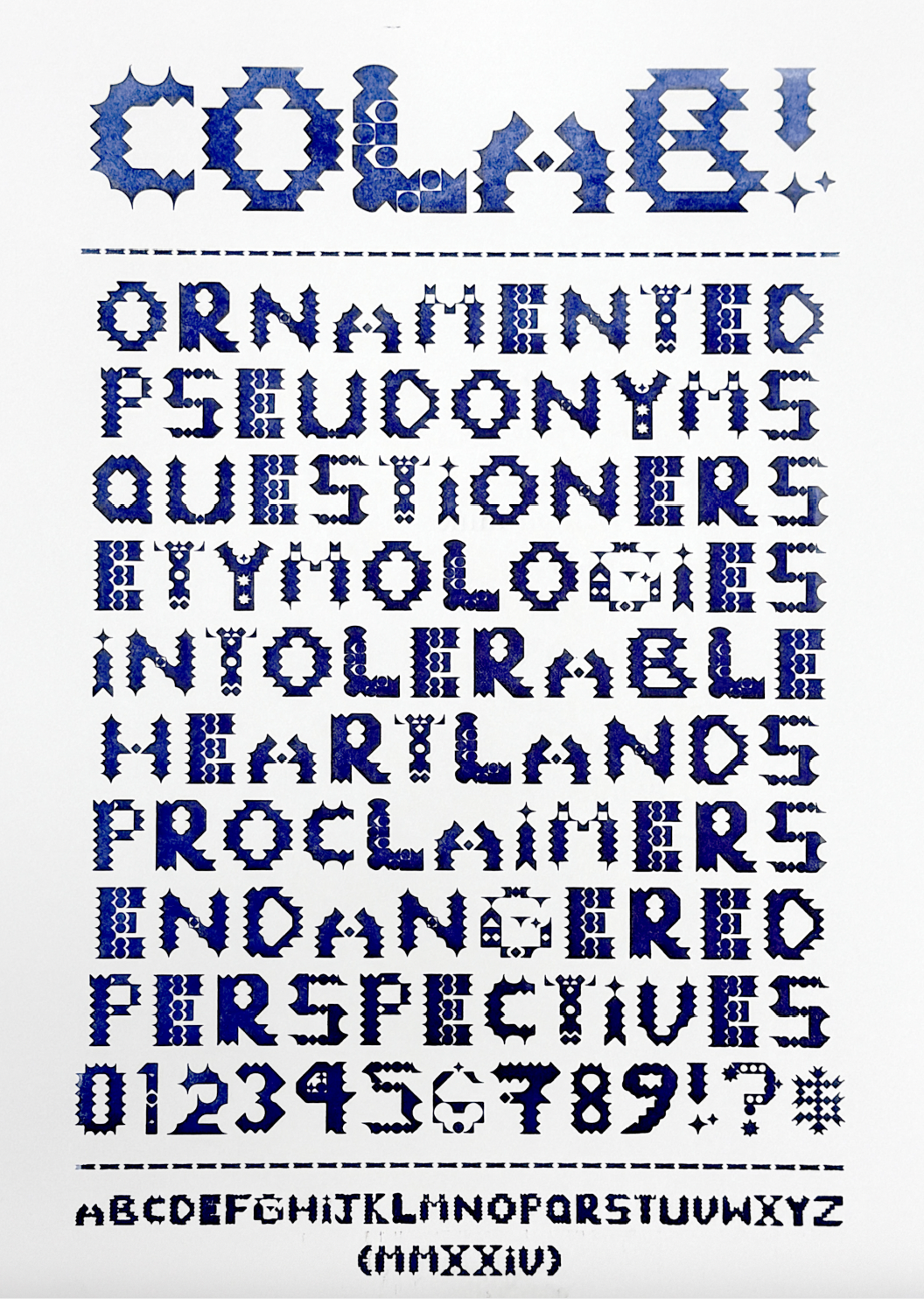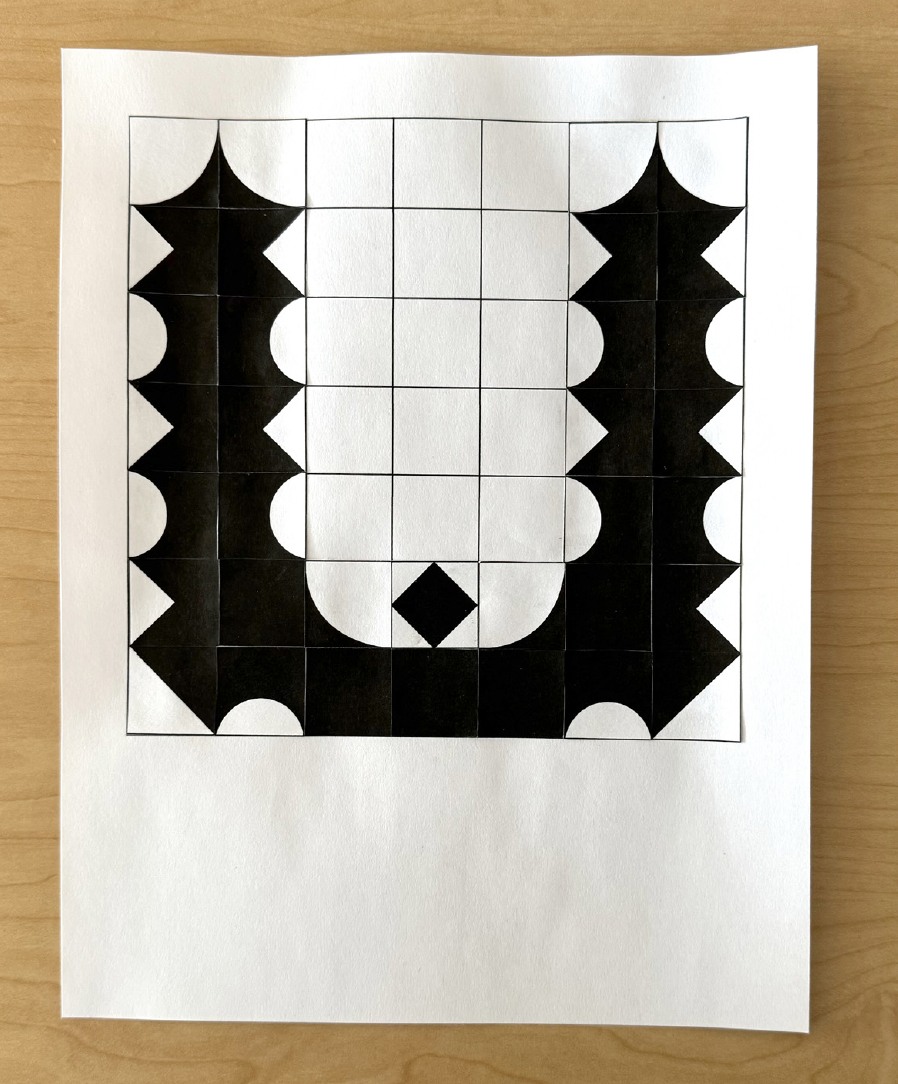
Collab Typeface
This typeface was the result of a collaborative effort by the 14 students enrolled in the course. Each student was responsible for designing a subset of characters based on specific guidelines: every character had to be created within a 7 x 7 grid using only a set of predefined shapes.
Through multiple rounds of critique, the class worked to achieve a cohesive aesthetic while gaining hands-on experience with the technical aspects of font design. The final designs were scanned and digitized using Glyphs, a professional font-creation software. To showcase the typeface, we printed type specimens on an Asbern letterpress with a custom polymer plate.